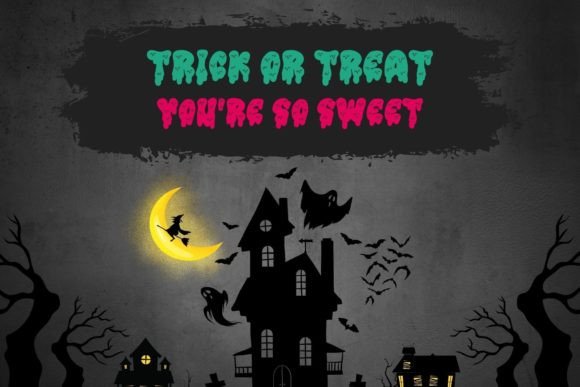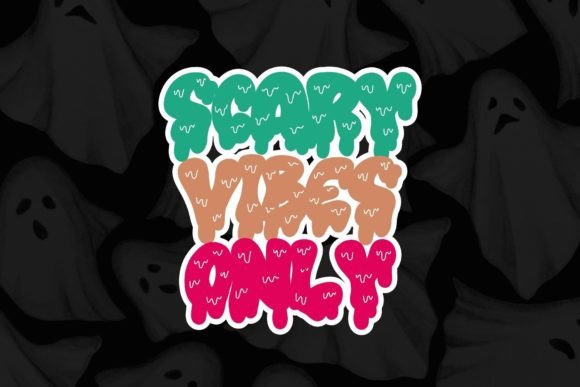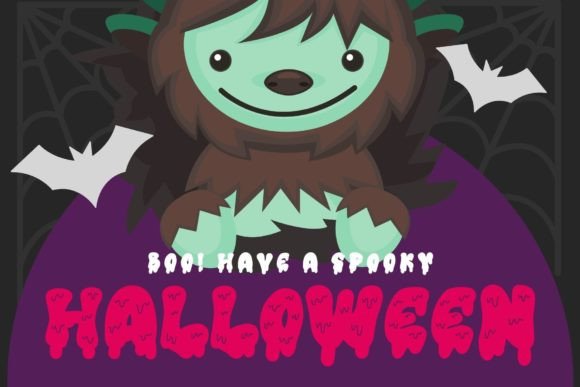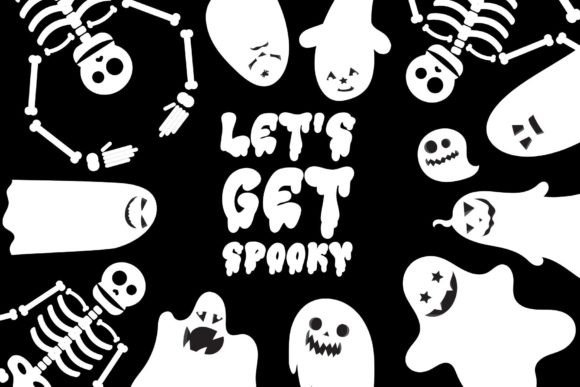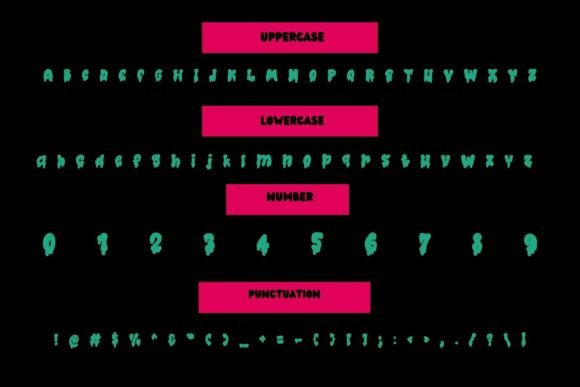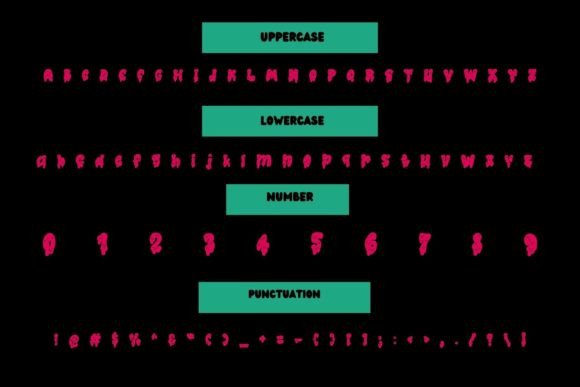
Introduction to Retro Zombie Font
Retro Zombie is a cool Halloween decorative or display font.
The additional elements of blood dripping and bones-like letters make an ambiance of horror Invitations, postcards, posters, and headings for a Halloween event; this font can be used in every setting .